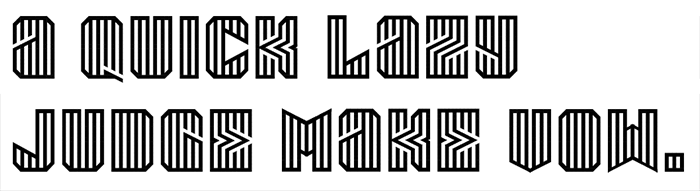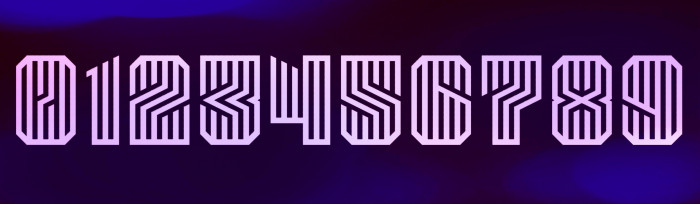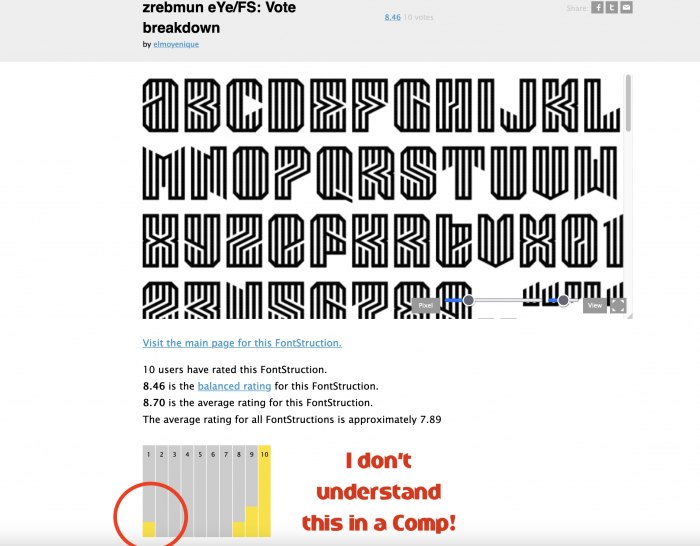
The NUMBERS were the origin: This font has been created from the design of glyphs 0, 2 and 4, which was then extrapolated to the rest of the characters. Unicase with alternates. Thanks @AidenFont for the vertical stripes idea.
Somehow those outlined glyph contour sections where the actual outline had been left out is making it appear sort of unfinished..  I'm especially refering to those outline segments that are situated on the glyph's very outside, so not the (partially) enclosed areas. I think because there is no clear method of implementation in its current state.
I "can" understand the implementation when lines/strokes are intersecting. But for example with letters J, M, N, L, maybe C, as well as the "Solidus" (/) in their current forms look unfinished.
Dear @Sed4: You are a perfectionist and I love this, nothing better than your look to highlight my weaknesses. At first I chose to leave those endings open because I tried to close them and I didn't like it. I'm never entirely sure what some glyphs look like in a font before I publish it, and I think that happens to you sometimes, too. I'm going to retry it, but I like how it looks now (even if it seems ugly to you, hehehe). Thanks a lot.
And it seems to me that everything is fine! These open areas stylistically complement each other in different letters, and where necessary for ease of reading, you closed them, as in the letter K, R, V. Good font and good luck)
Very playful, I like it, the $ sign is nice. Good luck
I don't wanna call it "ugly" though, but rather "unconventional" is a more appropriate term. It's sort-of like the effect that those "open" endings have in terms of the trickery thwy pull on my mind. And perhaps to me the effect is at its strongest on the diagonal parts..
I can fully understand that it is just a matter of 'which' bits and pieces get thrown at the wall to see what sticks. And, on many occasions my fonts are exactly the same collections of "happy-accidents", "near" hits, and many "Nope's"
I can't say that I'm not liking a "closed" version though..
I can imagine this being very useful for imprinting words onto seared meats. Like using a pan designed with this font for maximum grill marks. Fun type, elmoyenique!
In an Art Periods foder this could fit into 'op-art'. Great eye-confuddling lines, good to have those white cuts to help see A,G,P,Y etc ...
Excellent number sample!
very cool, reminds me of window-blinds.